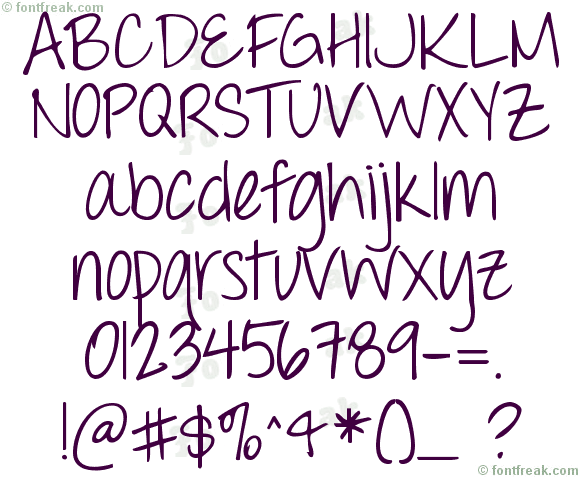
"Throw My Hands Up in the Air" by Kimberly Geswein is a charming handwritten font that captures a sense of spontaneity and joy. This decorative typeface features playful, flowing letterforms that mimic natural handwriting, making it perfect for projects that require a personal touch. The stroke weight varies slightly throughout the characters, adding an organic feel that enhances its unique character. The moderate spacing between the letters allows for easy readability while maintaining a casual aesthetic.
Ideal for a variety of creative applications, this font excels in settings such as wedding invitations, where its whimsical style can convey warmth and celebration. It also works beautifully on greeting cards, adding a heartfelt note to personal messages. For small businesses, using the "Throw My Hands Up in the Air" font on menus or promotional materials can create a friendly and approachable brand image. Content creators will find this font particularly useful for social media graphics, where eye-catching typography is essential to engage audiences.
The target audience for this font includes graphic designers seeking to add a unique flair to their projects, small business owners aiming to create inviting marketing materials, and content creators looking for a distinctive font to enhance their online presence.
What sets the "Throw My Hands Up in the Air" font apart is its ability to infuse any project with a sense of joy and creativity. Its handwritten style feels relatable and engaging, making it a perfect choice for anyone looking to connect with their audience on a more personal level. With its freeware license, it's also accessible for anyone seeking a fun and expressive typeface. Discover the charm of this unique font with a "Throw My Hands Up in the Air font free download" today.